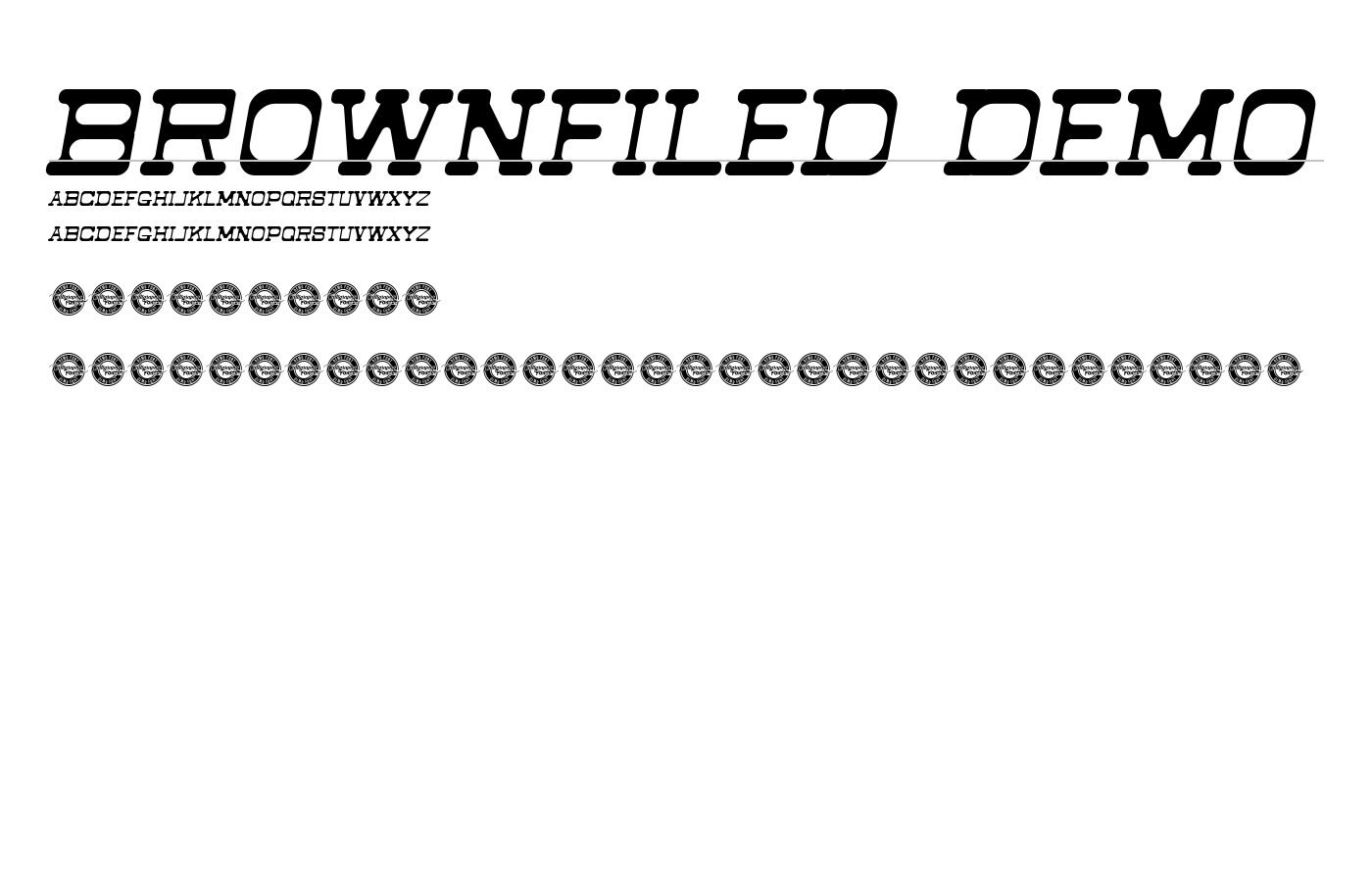
Brownfiled Demo is a bold, condensed slab serif font with a strong industrial and vintage vibe. Its thick, blocky serifs and moderately high contrast strokes give it a sturdy, impactful presence, while the italic style adds a dynamic, slightly playful energy. Ideal for branding, logos, and headlines, it works well where a bold, retro-modern statement is needed.
Brownfiled Demo Font
About Brownfiled Demo Font